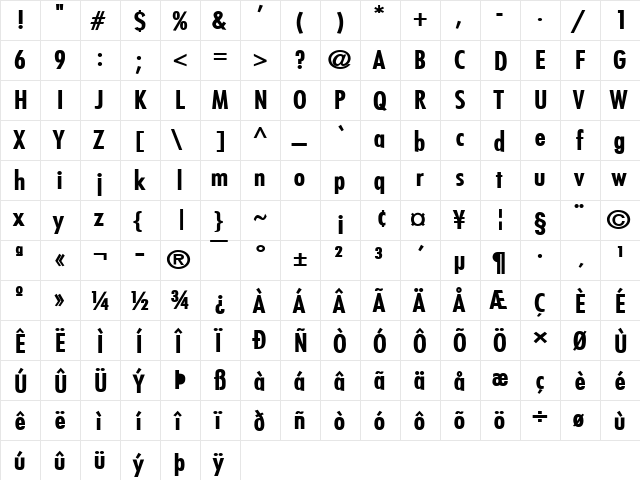
Fuji-Extended Bold
Design Context for Fuji-Extended Typeface
Fuji-Extended offers clean, dependable letterforms without strong stylistic allegiance, making it a practical choice for designers who need flexibility. The heavy weight commands attention and anchors typographic hierarchies.